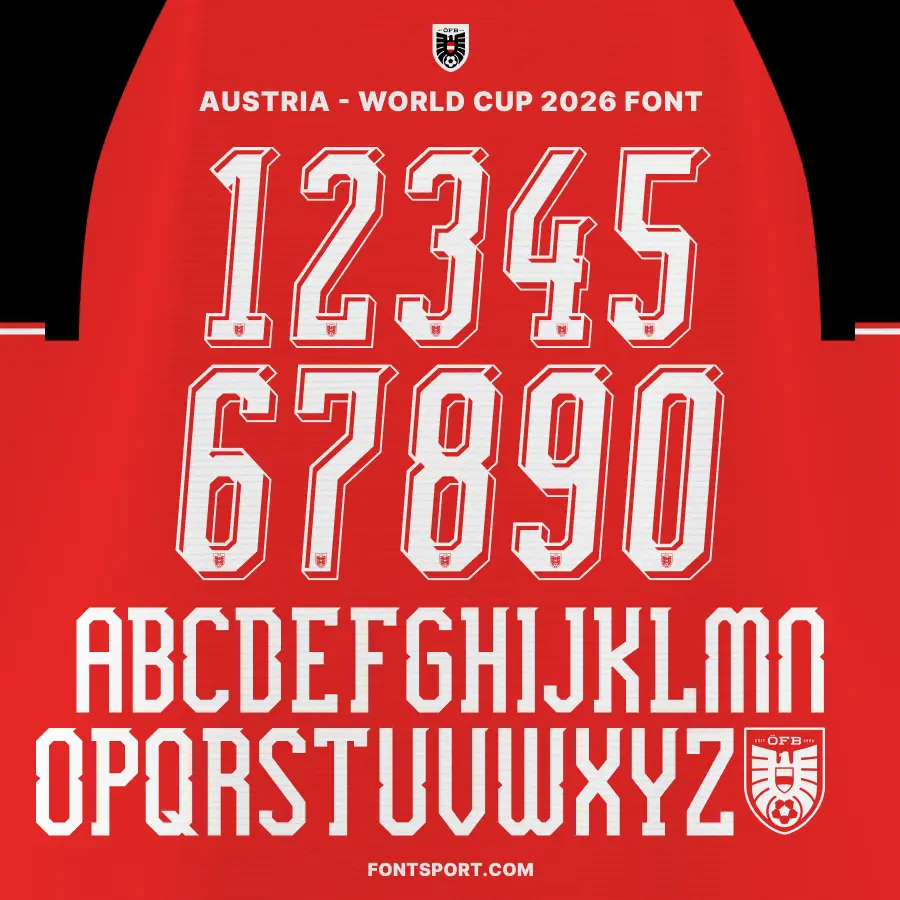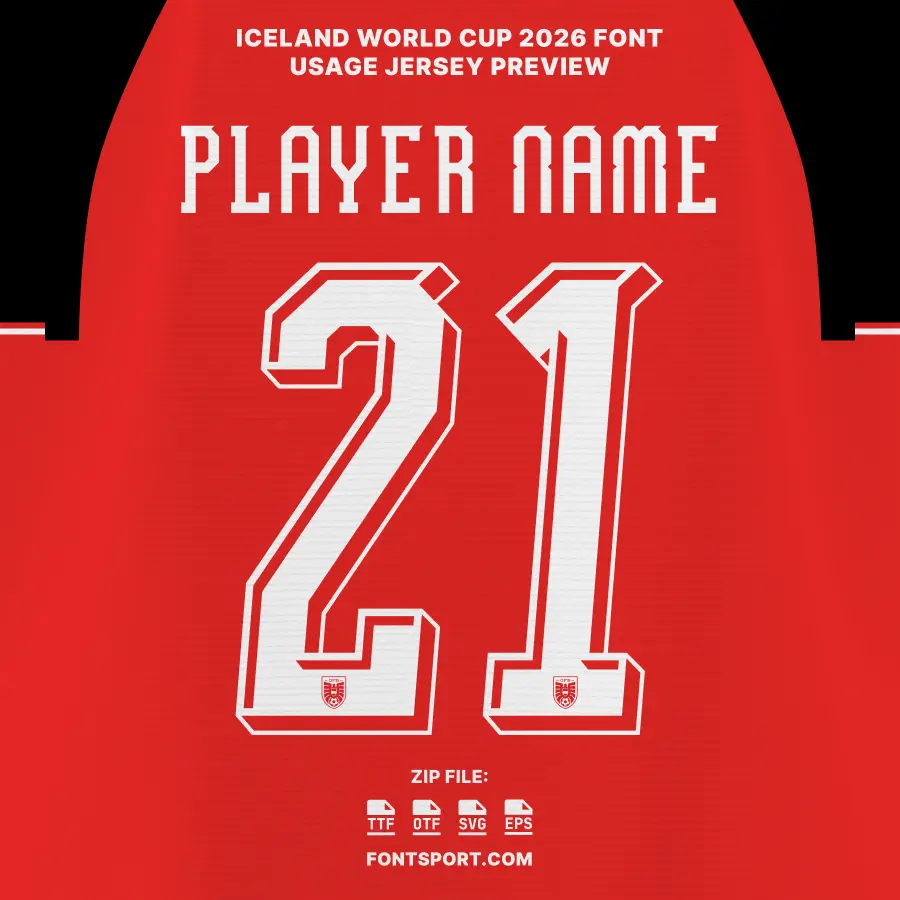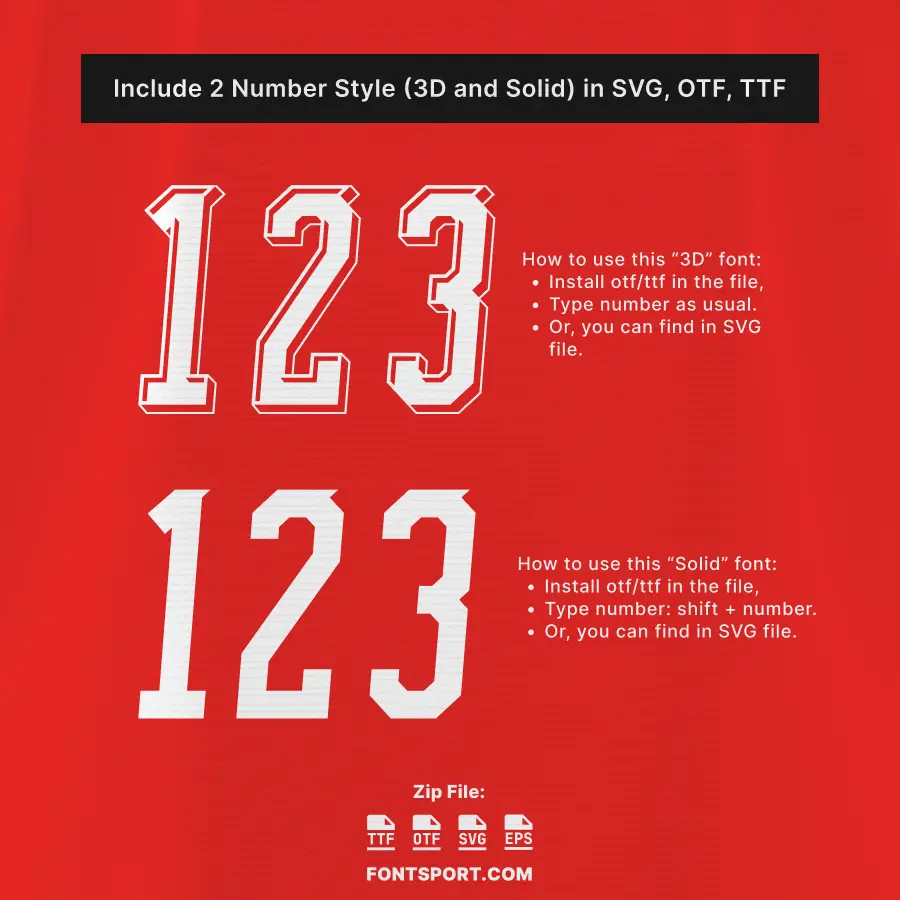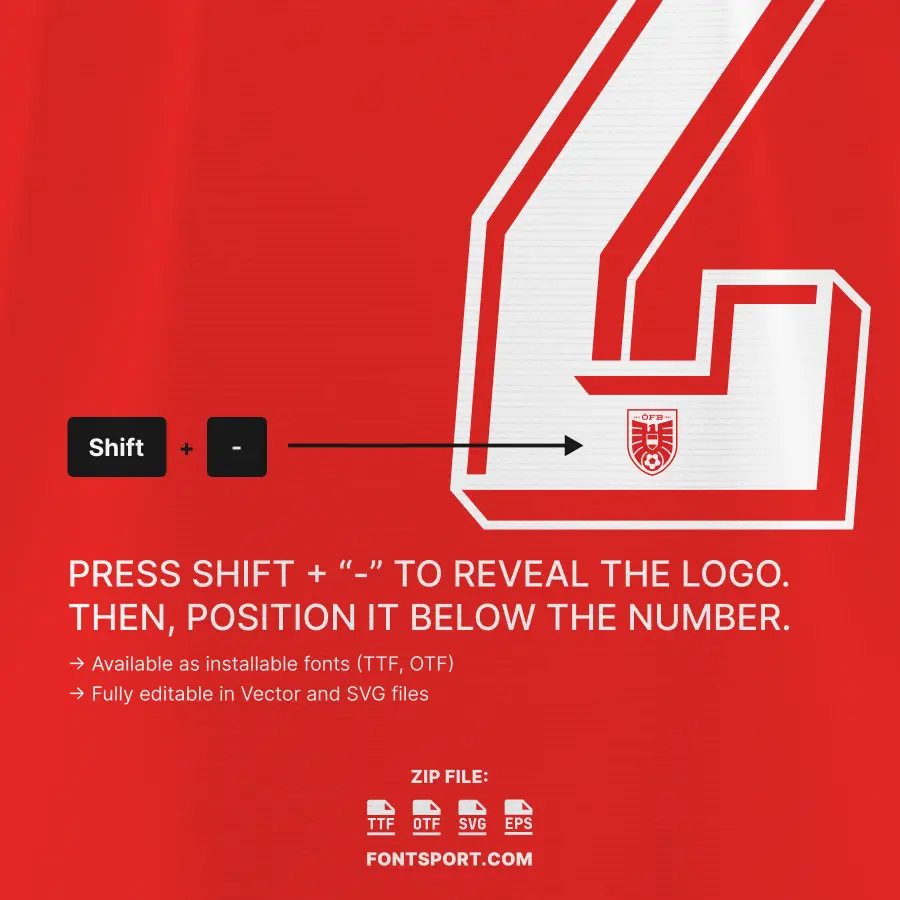
Austria World Cup 2026 Font Kit – UEFA Qualifiers National Team Typeface
Austria’s 2026 campaign brought a fresh wave of momentum—topping their UEFA qualifying group and securing a World Cup place. source
This Austria World Cup 2026 Font Kit is built for creators who want that modern national-team aesthetic in a clean, production-ready format for football visuals, print, and digital design.
Key Visual Identity of the Font
• Strong, modern letterforms designed for high readability on shirts, stadium screens, and social media
• A crisp, athletic feel that suits Austria’s bold red-and-white identity
• Balanced spacing for namesets, numbers, and compact sponsor-style layouts
• Numbers 0–9 + uppercase A–Z for namesets
• 🏆 Perfect for celebrating Austria’s return to the biggest stage—qualified by winning Group H